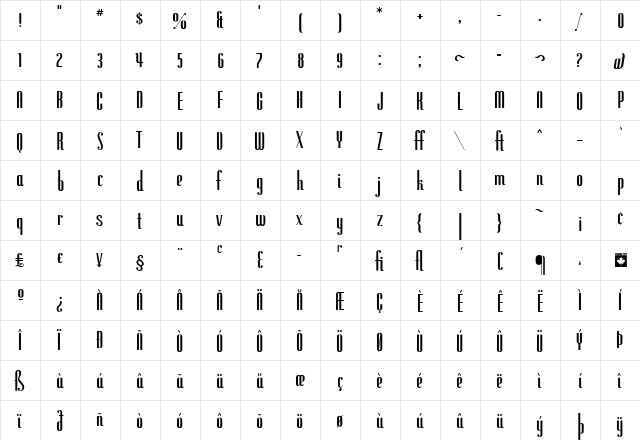
Flirt Regular
Design Context for Flirt Typeface
Flirt is a composed and adaptable typeface that performs quietly and consistently across a wide range of design contexts.